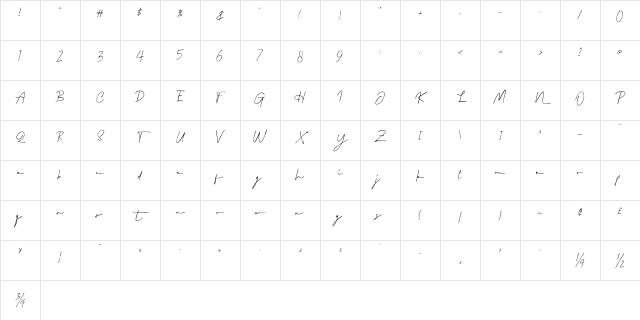
Complete Wonderful Melanesia Signature Regular glyph index. Displaying only characters natively supported by Wonderful Melanesia Signature Regular font.
Wonderful Melanesia Signature is a composed and adaptable typeface that performs quietly and consistently across a wide range of design contexts.